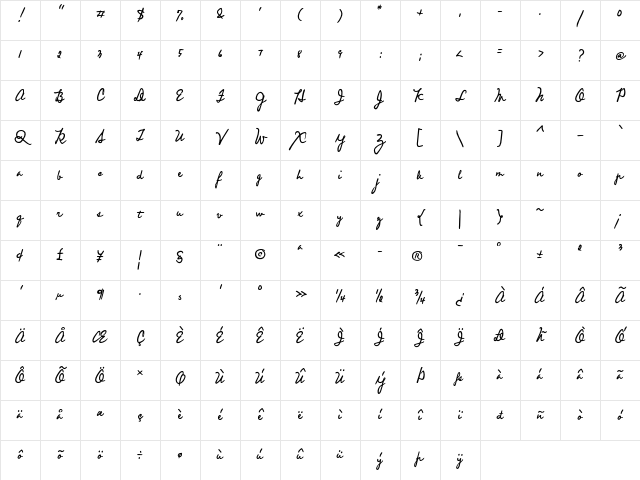
Complete Nanette Regular glyph index. Displaying only characters natively supported by Nanette Regular font.
Nanette is a composed and adaptable typeface that performs quietly and consistently across a wide range of design contexts.
Pro Tip: Use Nanette in both headline and body roles to test its range before committing to a single application.